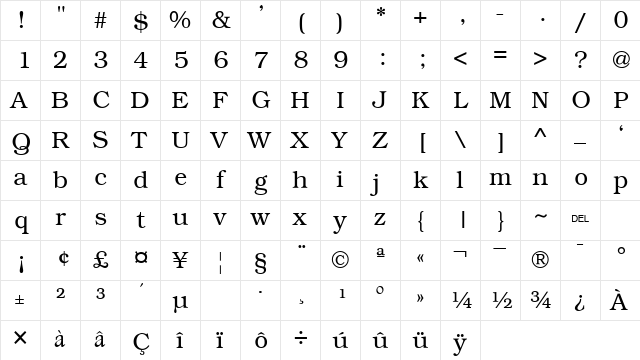
KacstOneFixed Regular
Design Context for KacstOneFixed
KacstOneFixed is a composed and adaptable typeface that performs quietly and consistently across a wide range of design contexts.
Pro Tip: Use KacstOneFixed in both headline and body roles to test its range before committing to a single application.